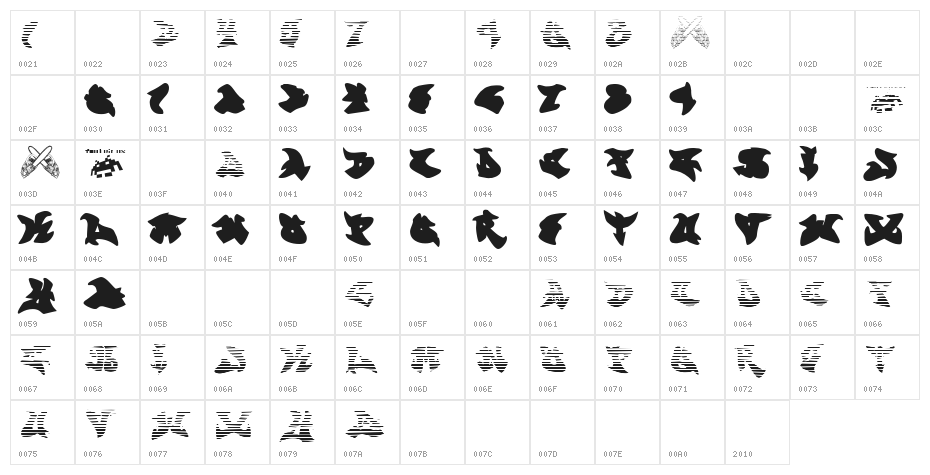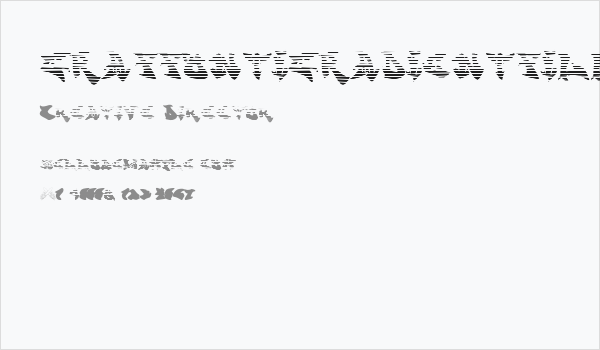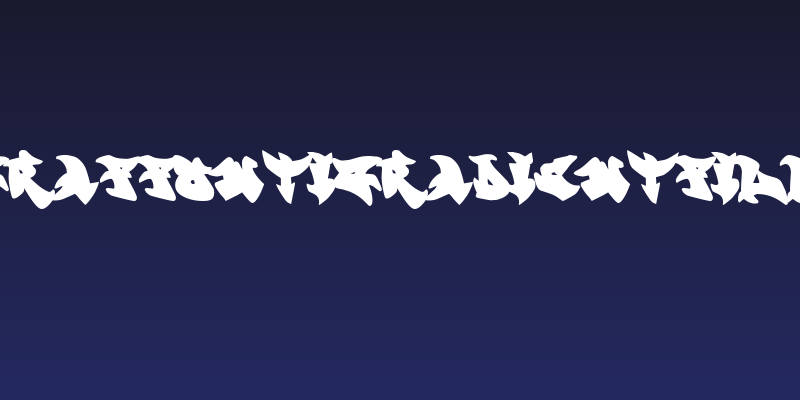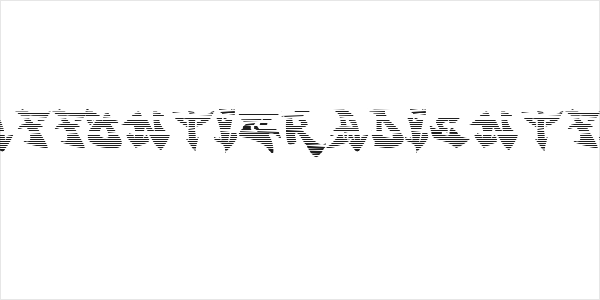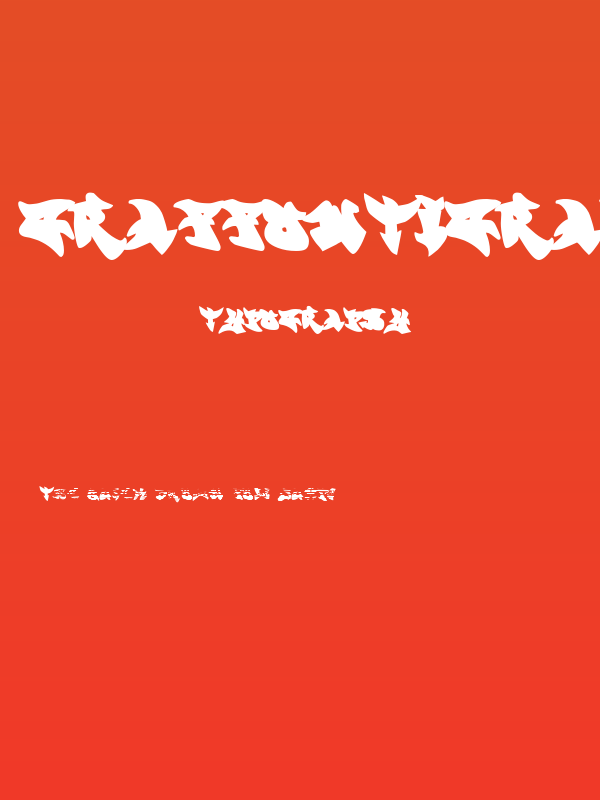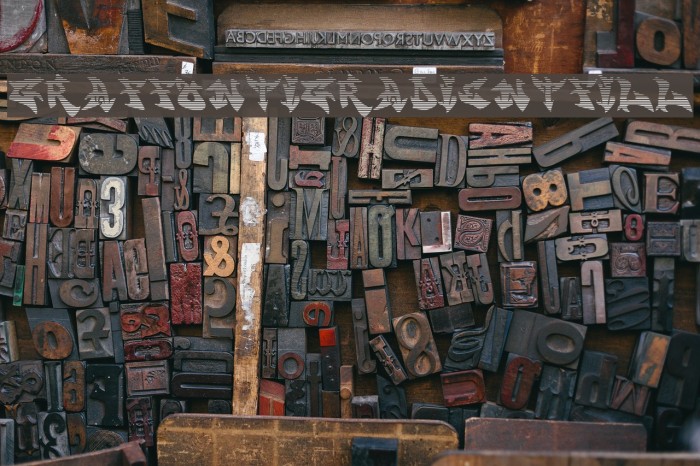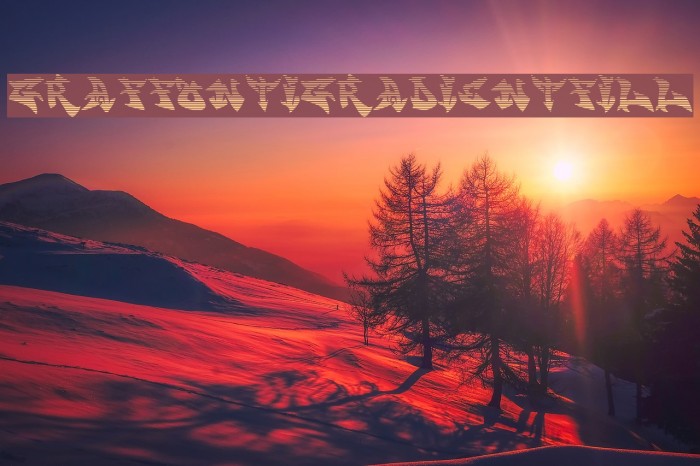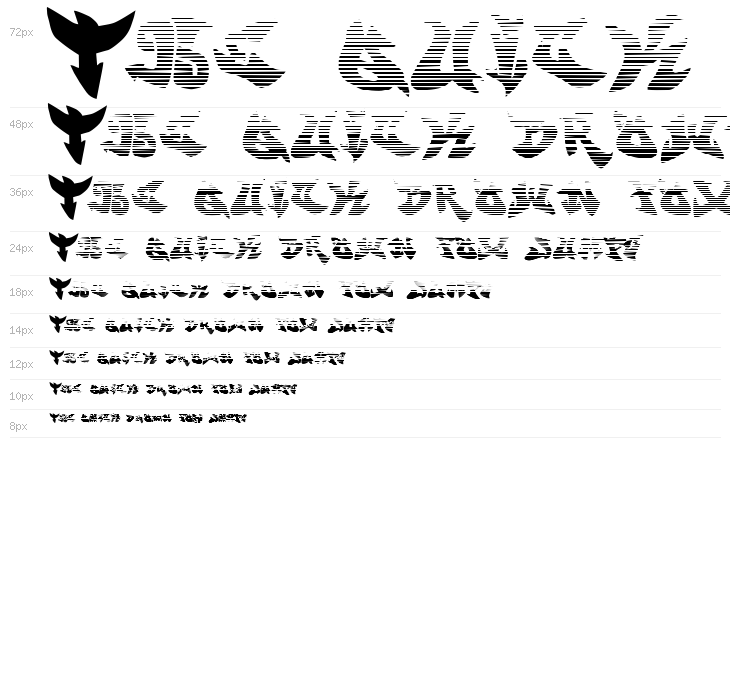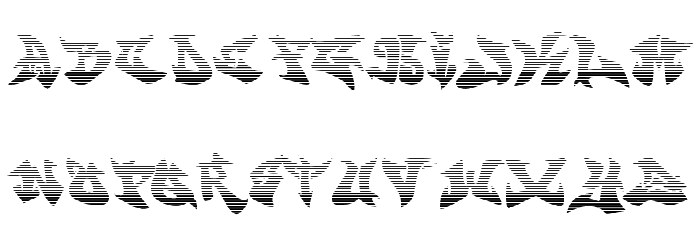
graffontigradientfill Font
graffontigradientfill Description
This font exhibits a bold and dynamic graffiti style, characterized by its thick, irregular strokes and edgy, urban aesthetic. The uppercase letters are highly stylized, with exaggerated curves and sharp angles that create a sense of movement and energy. The lowercase letters maintain the same boldness, offering a cohesive look throughout. The numbers and special characters follow the same design principles, ensuring consistency. This font is designed to stand out, with a high contrast between the thick strokes and the negative space, making it ideal for eye-catching designs.
| Overall Style | Urban, Edgy, Modern |
| Use Case | Logos, Posters, Album Covers |
| Proposed Projects | Perfect for street art-inspired designs, music album covers, urban-themed posters, and edgy branding projects. |